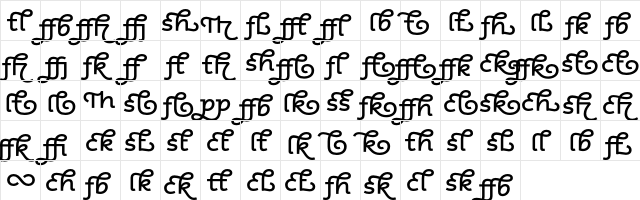
AspectSwashLigatures Bold Font Preview
Design Context for AspectSwashLigatures Typeface
AspectSwashLigatures brings a calligraphic fluidity to the page — its connecting strokes and expressive curves give it an unmistakably human quality. The heavy weight commands attention and anchors typographic hierarchies.
Font Pairing: Combine AspectSwashLigatures with a simple geometric sans for maximum contrast — the tension between flowing curves and clean structure is a classic typographic pairing.
Pro Tip: Pair AspectSwashLigatures with a clean sans-serif for supporting text. The contrast between fluid script and geometric structure creates an elegant typographic hierarchy.